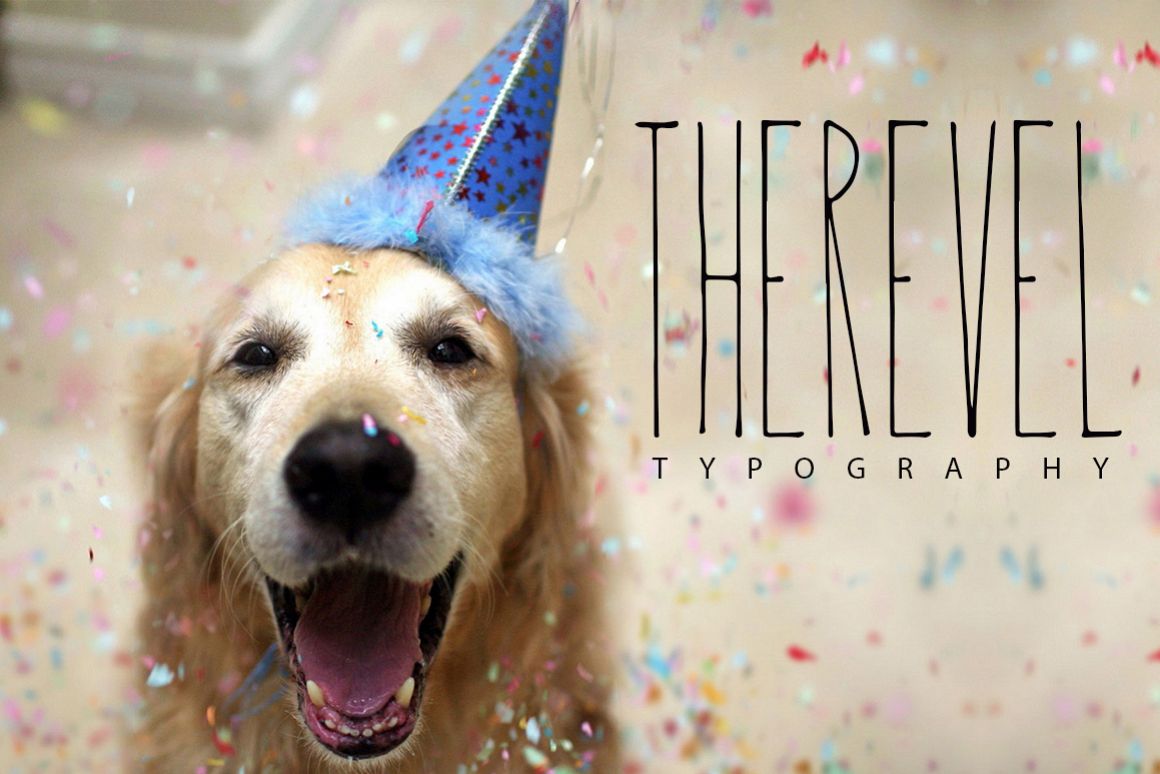
The Revel Family
Therevel-Black
Therevel-Regular
Therevel-Doble
Therevel-Thin
The Revel is a handmade thin font that you can used by double version to take more strength on your logos or template titles.
All uppercase. All letters. All numbers.